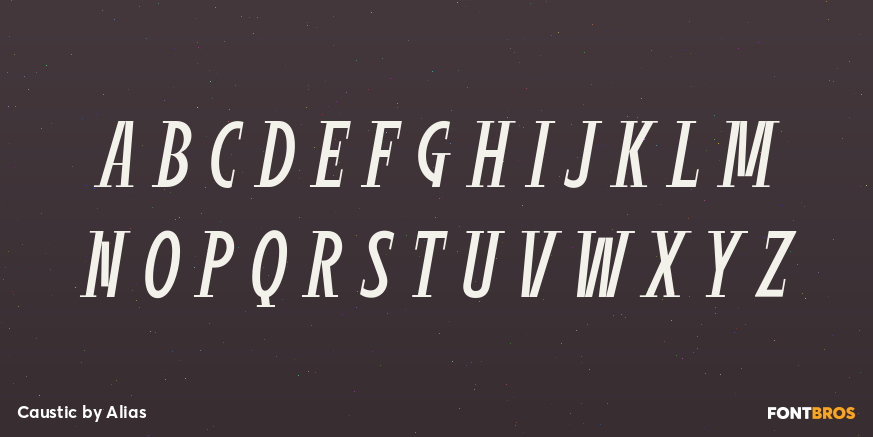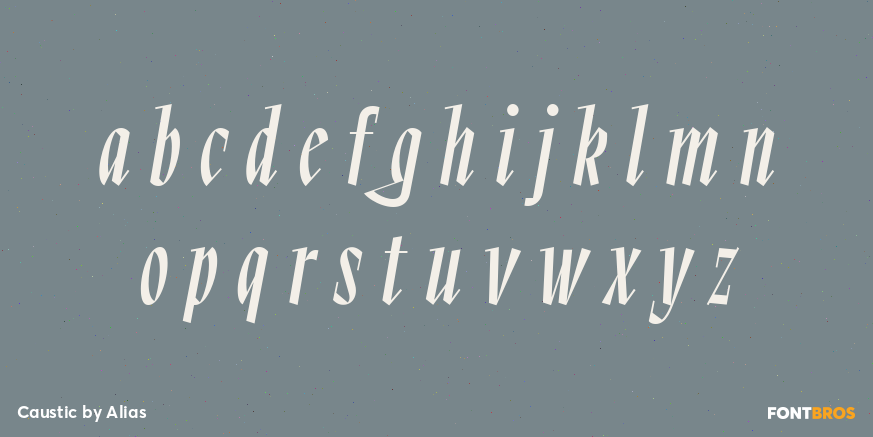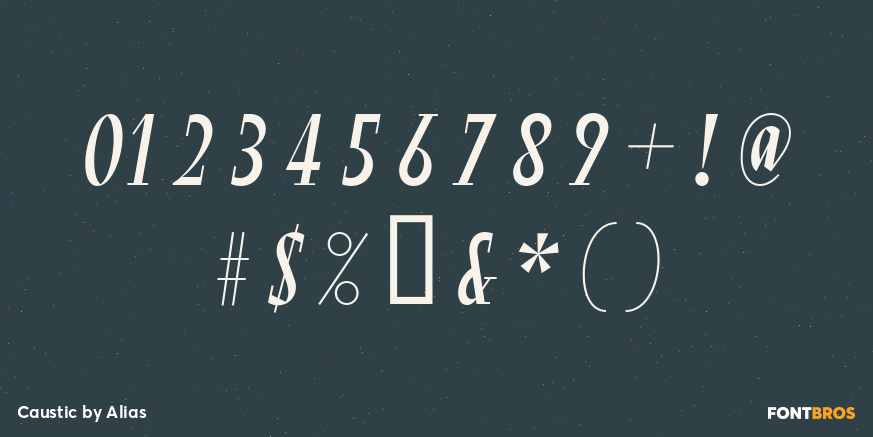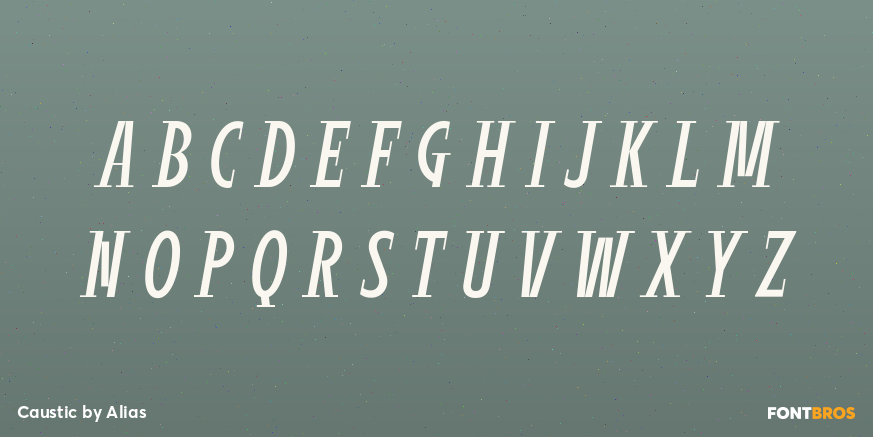
Caustic
Font Family by Alias
Caustic is a three-style display family from Alias that blends serif structure with a handwritten, calligraphic edge. Its narrow proportions, sharp wedge serifs, high-contrast strokes, and spiky terminals give it a dramatic, expressive presence that feels both formal and slightly gothic-inspired.
With Light, Medium, and Bold styles included, it offers a useful range for designers who want movement and intensity without losing elegance. Caustic is well suited to posters, branding, packaging, editorial headlines, and other decorative display work where an angular, vintage-leaning voice can do the heavy lifting.